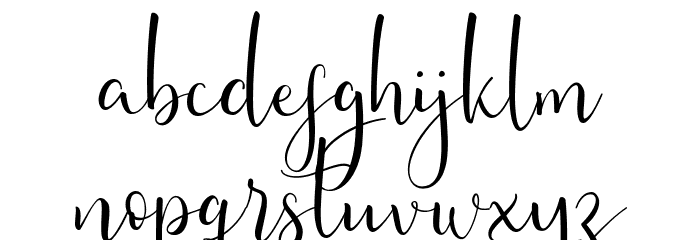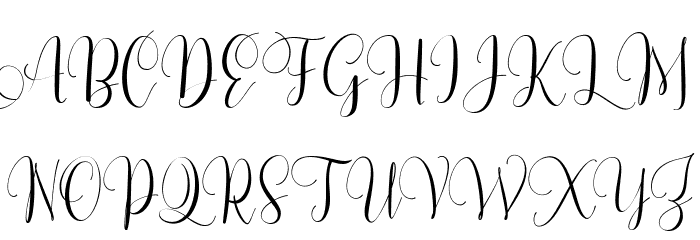
Berlynda FREE Font
This elegant script font features a flowing, cursive style with intricate loops and flourishes. The uppercase letters are characterized by their ornate swirls, giving a sense of sophistication and grace. The lowercase letters maintain a consistent flow, with some characters extending below the baseline, adding to the font's dynamic appearance. The numerals and special characters are designed to match the overall aesthetic, ensuring a cohesive look. This font is perfect for projects that require a touch of elegance and refinement.
An elegant script font with flowing, ornate characters.
- Proposed Projects: Ideal for wedding invitations, elegant branding, greeting cards, and decorative headlines.
- Overall Style: Elegant, Decorative
- Use Case: Headlines, Invitations, Branding